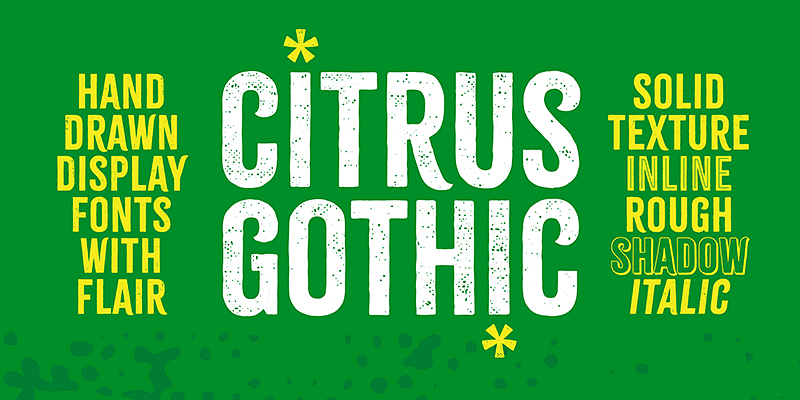
Citrus Gothic Font Free Download is a bold, vintage-inspired sans-serif typeface with a handcrafted feel and a slightly condensed structure. Designed to evoke the charm of early 20th-century advertising and signage, this font is perfect for logos, packaging, posters, coffee shop menus, and any creative project that aims for a rustic, retro look.
Its clean lines paired with subtle imperfections give it both character and versatility. Whether you’re working in Adobe Illustrator, Photoshop, or Canva, Citrus Gothic integrates effortlessly and looks great in both uppercase headlines and stylized branding elements.